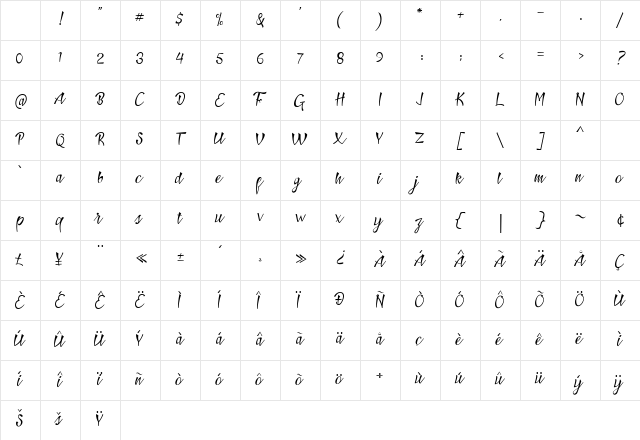
Badhead Typeface is a composed and adaptable typeface that performs quietly and consistently across a wide range of design contexts.
Pro Tip: Use Badhead Typeface in both headline and body roles to test its range before committing to a single application.